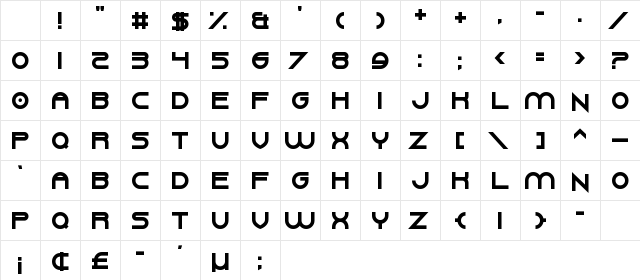
Complete Gang Wolfik Craze Regular glyph index. Displaying only characters natively supported by Gang Wolfik Craze Regular font.
Gang Wolfik Craze is a composed and adaptable typeface that performs quietly and consistently across a wide range of design contexts.